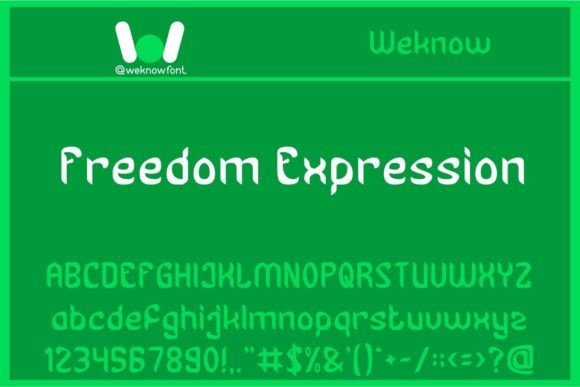
The Power of Typography: Unleashing Your Creative Voice
Remember that moment when a brilliant idea struck you, and you couldn’t wait to bring it to life? For many creatives, it’s the spark that sets off a chain reaction of inspiration, leading to some of the most innovative and captivating designs we’ve ever seen. Whether it’s a logo, a poster, or a website, the right font can make all the difference in conveying your message and expressing your unique voice.
Enter the Freedom Expression Font, a display font designed to empower designers to push the boundaries of their creativity. With its versatility and expressive nature, this font is perfect for a wide range of applications, from corporate identity to apparel industry and everything in between.
For designers, the Freedom Expression Font offers a valuable tool to help them convey their vision and bring their ideas to life in a way that’s both authentic and captivating.
Key Features of Freedom Expression Font
- Font Family: The Freedom Expression Font is a unique, high-quality font family designed for expressive typography. It is available in multiple weights, from light to bold.
- Character Set: The font includes a comprehensive character set, including Latin, Greek, Cyrillic, and other languages, making it suitable for international use.
- Resolution: Designed to work well at high resolutions, the Freedom Expression Font is ideal for use in digital media, such as websites, mobile apps, and video games.
- Unique Characteristics: The font’s unique characteristics include its expressive, handwritten feel and its ability to convey a sense of emotion and personality.
Freedom Expression Font Review
I recently had the chance to work with the “Freedom Expression Font” and here’s my honest take on it.
- Expressive and unique letterforms: The Freedom Expression Font is perfect for designers who want to add a touch of personality to their projects.
- Highly customizable: With its wide range of weights and styles, you can easily adapt the font to fit your specific design needs.
- Good legibility: Despite its expressive nature, the font is still highly readable, making it suitable for both digital and print applications.
- Limited language support: The font may not be as effective in languages that require more nuanced character sets.
- Not ideal for small text: The font’s expressive nature can make it difficult to read in smaller sizes, so use it wisely.
Overall, I’d say the Freedom Expression Font is a great addition to any designer’s toolkit. It’s perfect for projects where you want to add a touch of personality and creativity. However, be mindful of its limitations and use it thoughtfully to get the best results.
The Freedom Expression Font is ideal for designs that require a bold, expressive, and artistic touch. Use it for headings, titles, and quotes to add a personal and emotional element to your design. Some common use cases include:
– Artistic prints and posters
– Personalized gifts and merchandise
Q: Can I customize the Freedom Expression Font for my specific project needs?
Yes, the Freedom Expression Font is designed to be highly customizable. You can adjust font sizes, colors, and styles using your design application’s built-in tools. Additionally, the font’s OpenType features allow for advanced typographic controls, such as ligatures and contextual alternates.